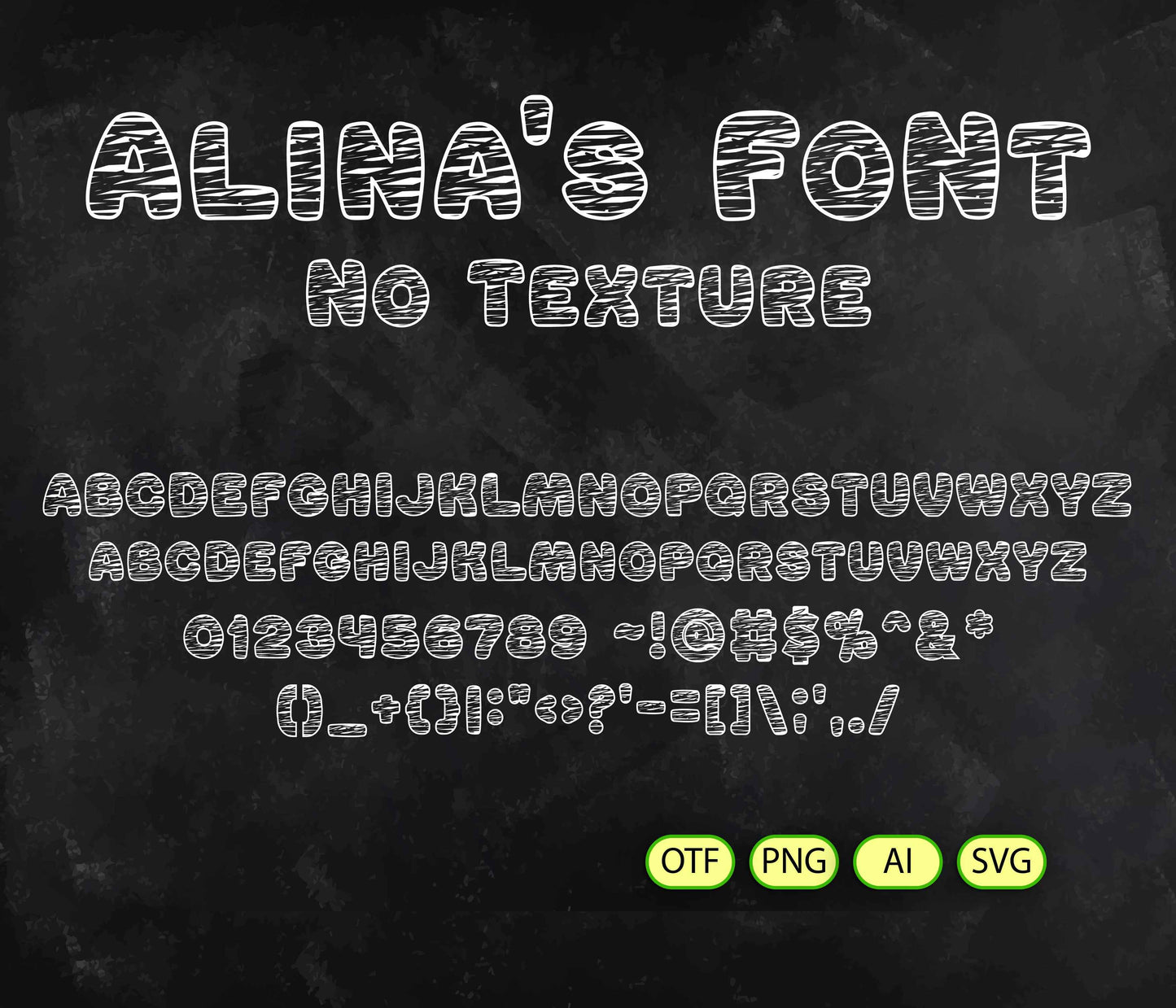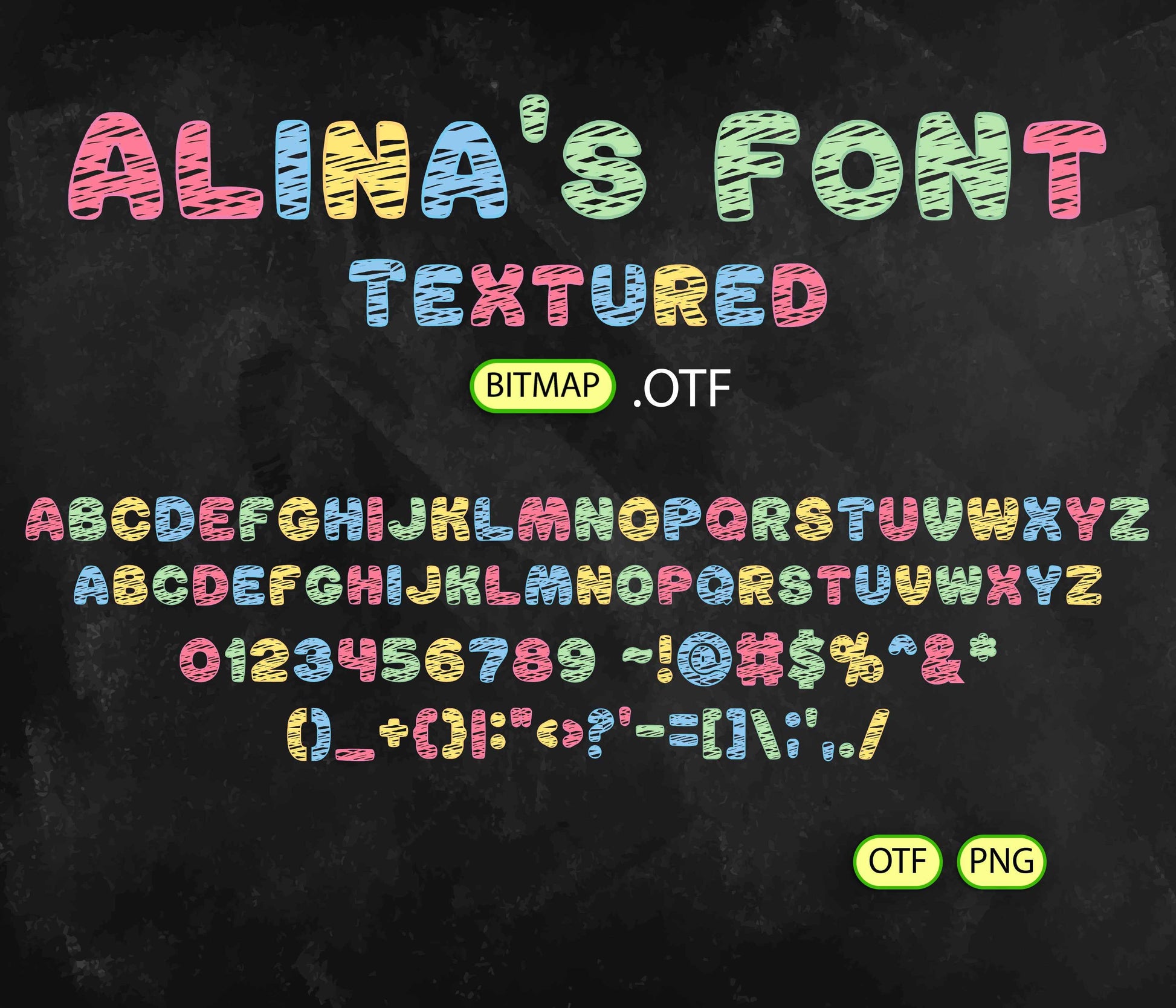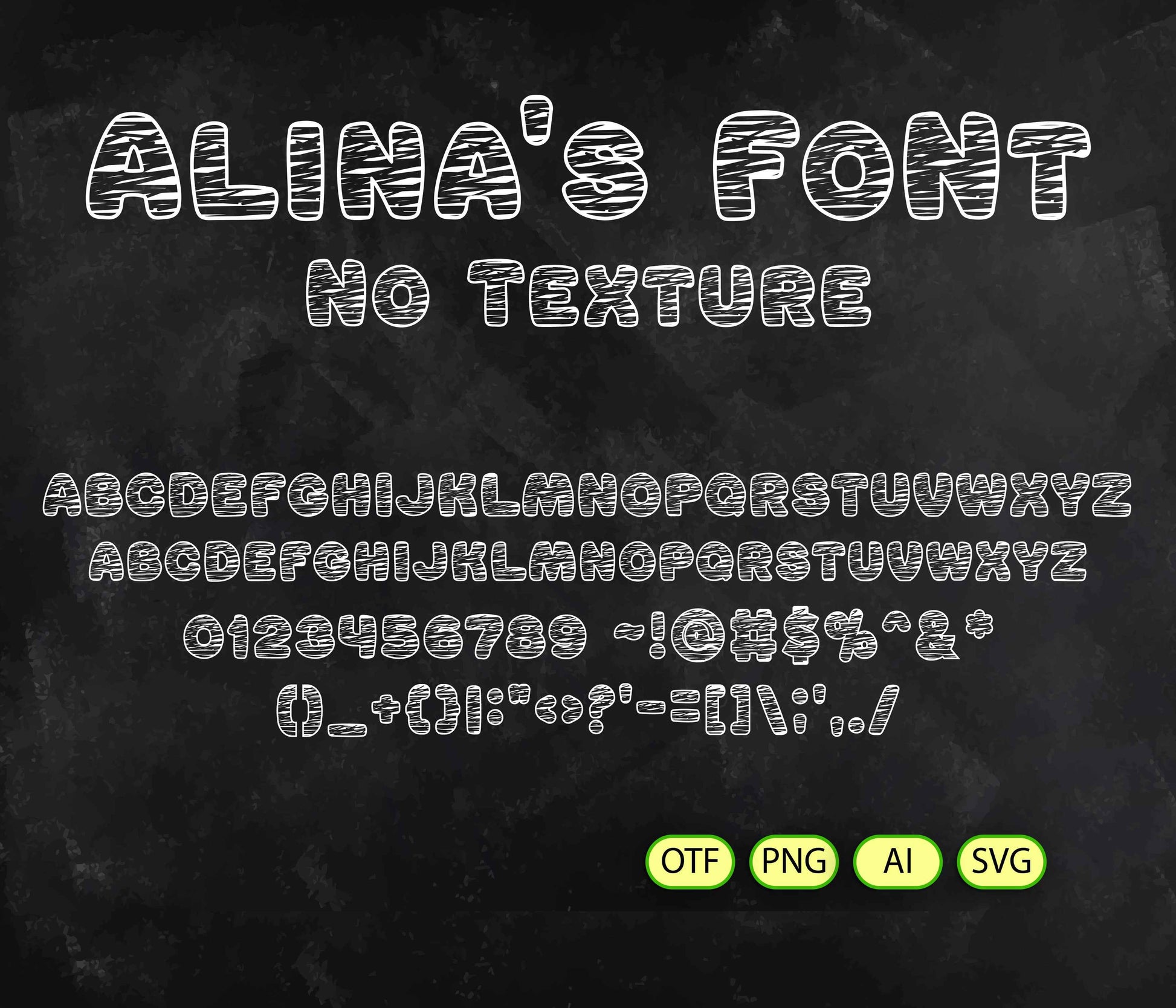
Chalk Font Textured
Chalk Textured Font - Back to School
This font evokes the classic feel of a chalkboard, reminiscent of days spent in bustling classrooms and the joyful anticipation of learning new things. Each character in this font is crafted to mimic the look of chalk on a blackboard, bringing back memories of school days, from solving equations to doodling in the margins. It's not just a typeface; it's a tribute to the timeless tradition of teaching and the endless possibilities of education.
What Font is Chalk Font?
Picture a typeface that captures the simplicity and charm of traditional classroom chalkboards. Carefully designed to reflect the hand-written style often seen in educational settings, this font includes a comprehensive character set, encompassing alphabets, numbers, and symbols. It provides a perfect blend of nostalgia and practicality, making it an ideal tool for educational materials, classroom decorations, and creative projects that require a touch of school-day magic.
What Can You Do With Chalk Font?
The Chalk Font - Back to School is perfect for a variety of educational and creative applications:
- Educational Materials: Create engaging and visually appealing teaching aids.
- Classroom Decorations: Design bulletin boards and classroom signage.
- Event Invitations: Craft invitations for school events and functions.
- Café Menus and Signage: Give a casual, educational vibe to menus and signs.
- DIY Projects: Use for crafting and scrapbooking with an educational theme.
- Business Presentations: Add a touch of informality and approachability.
- Social Media Posts: Stand out with a fun, school-themed design.
- Personalized Stationery: Create unique, school-inspired stationery.
- Retail Displays: Design eye-catching, education-themed retail signage.
- Website Design: Incorporate into websites for educational institutions or programs.
- Textured and FREE Non-Textured Variants: Choose from a realistic chalk texture or a clean, non-textured version for different design needs.
- Extensive Character Set: Provides a wide range of characters for comprehensive design options.
The Chalk Font - Back to School is more than just a typeface; it's a portal to the cherished world of learning and education.